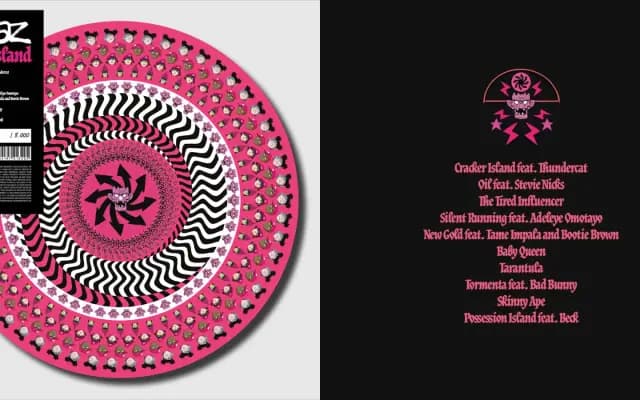
JAF Herb
Just Another Foundry · Tim Ahrens · 2010
A blackletter drawn from sixteenth-century cursive broken scripts, designed to retain fraktur's complexity without its conservative or aggressive associations.
Originating in Tim Ahrens's MA Typeface Design studies at the University of Reading, JAF Herb draws on sixteenth-century cursive broken scripts and printing types, with connecting letterforms at a tight spacing. The family spans Regular and Bold in both standard and condensed widths, giving it range for brand identity work where historical texture is wanted without the ideological baggage fraktur typically carries. The ATypI letter.2 award and its deployment in contemporary Austrian bakery branding confirm its practical utility in modern identity contexts.
Based explicitly on sixteenth-century cursive broken scripts and printing types, with fraktur-derived connecting letterforms; classified as blackletter despite its intent to avoid negative connotations associated with the style.